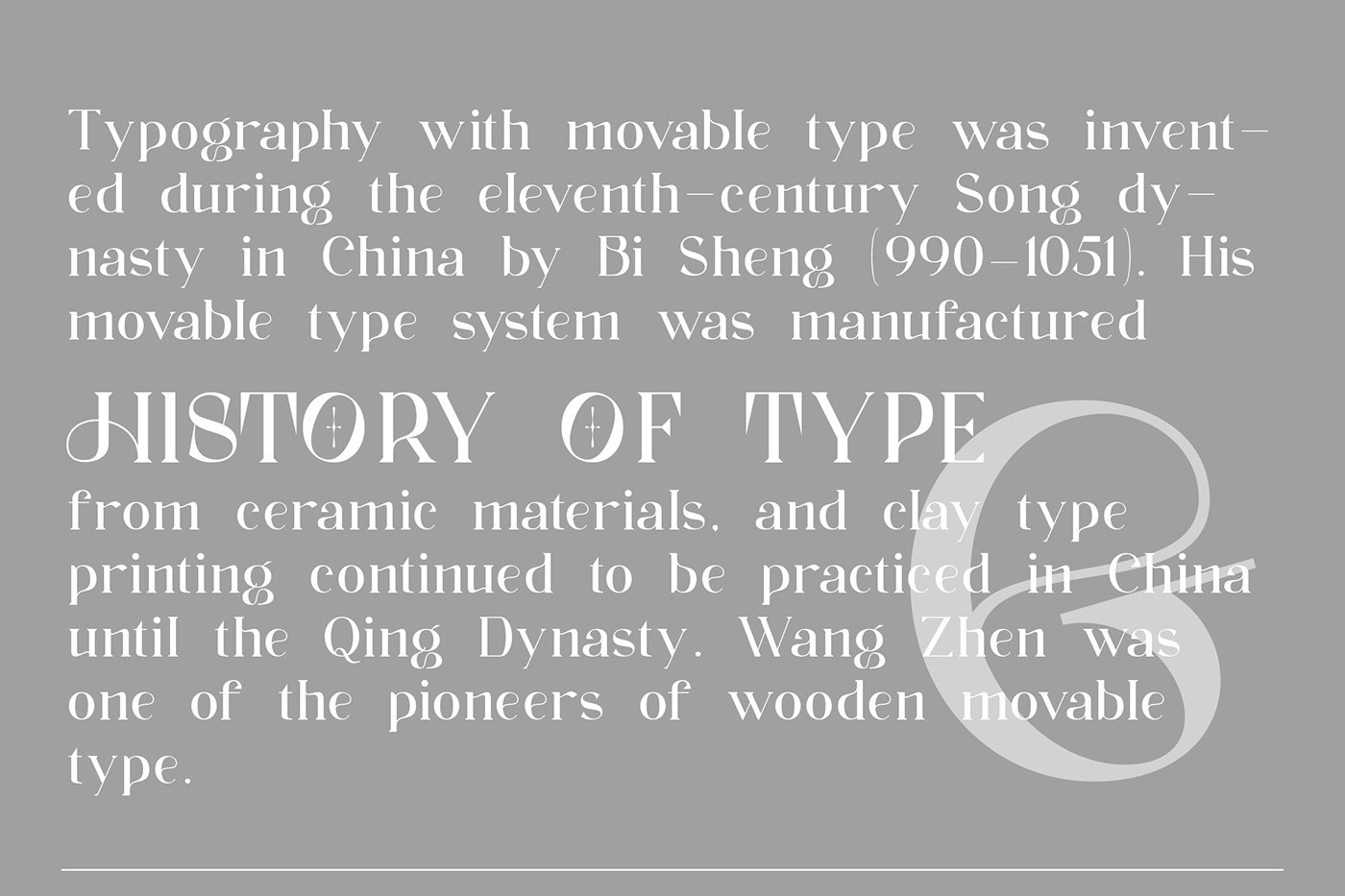
Introducing Magesta typeface is serif font this is inspired by chopper font relesed in August 9th 2021. magesta typeface support multilingual languages, unique uppercase and lowercase ligatures. Create unique & elegant logotype, use it as an elegant for your next project headlines, logotype designs, posters or t-shirts, business cards.